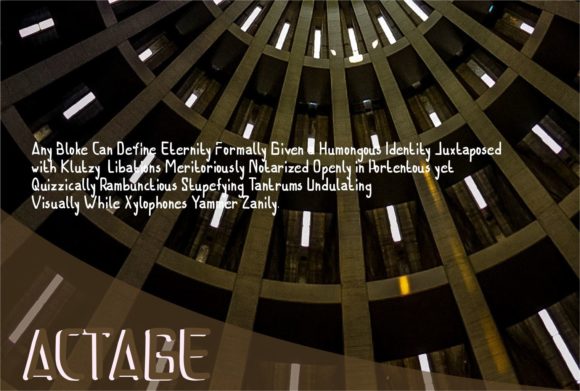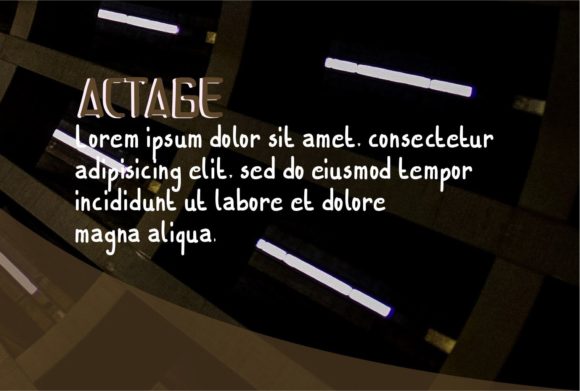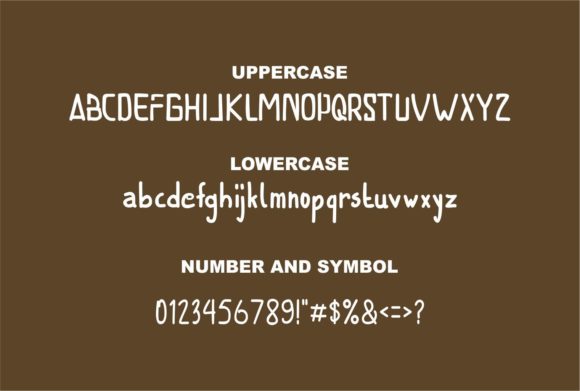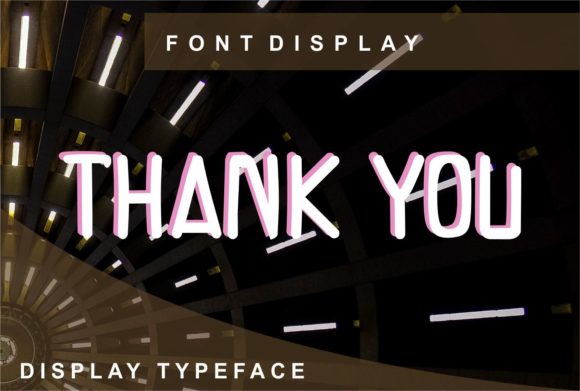
The Ultimate Display Font: Actage
Have you ever been in the middle of a design project, and suddenly, you’re stuck on finding the perfect font? I recall a particularly frustrating experience while working on a poster design for a music festival. The client wanted something modern, yet elegant, and I was determined to deliver. That’s when I stumbled upon Actage, a clean and adaptable display font that instantly elevated my design. In this article, we’ll dive into the world of Actage, exploring its features, uses, and endless possibilities.
An Honest Review of Actage
As a designer, I appreciate fonts that are both versatile and visually stunning. Actage certainly fits the bill. Here’s what I love about it:
• ✨ Clean and modern design that’s perfect for posters, flyers, and prints
• ✅ Highly adaptable, making it suitable for various design projects
• 🔥 Excellent for headlines, titles, and short text
• 📚 Supports multiple languages and OpenType features
While Actage is an excellent font, it’s not without its quirks. Here are a few limitations to consider:
• 🤔 May not be the best choice for body text or long paragraphs
• ⚠️ Some users may find the font too minimalist or lacking in personality
The Backstory of Actage
Actage was designed by a team of typographers who wanted to create a font that would be both versatile and visually stunning. Inspired by modernist design principles, Actage was crafted to be a clean and adaptable display font that would excel in a variety of design applications. The design team drew inspiration from classic typography, while incorporating modern elements to create a unique and distinctive look.
What is Actage? Actage is a clean and adaptable display font designed for use in various design projects, including posters, flyers, and prints.
Is Actage suitable for body text? While Actage is an excellent font, it’s primarily designed for headlines and short text. For body text, you may want to consider a font with better legibility.
Does Actage support OpenType features? Yes, Actage supports OpenType features, including ligatures, stylistic alternates, and glyphs.
In conclusion, Actage is an exceptional display font that’s perfect for designers, crafters, and creative hobbyists. Its clean and adaptable design makes it suitable for a wide range of projects, from posters and flyers to prints and digital designs. With its excellent OpenType features and versatility, Actage is sure to become a staple in your font library.